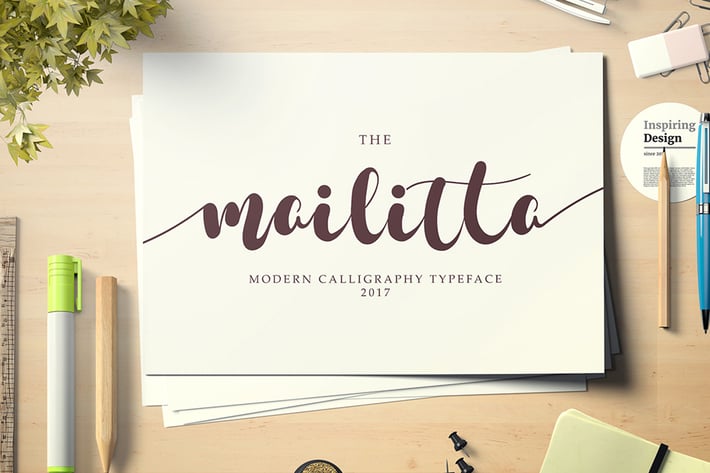
Mailitta font duo
Mailitta is modern script font. With modern script style this font will perfect for many different project ex: quotes, blog header, poster, wedding, branding, logo, fashion, apparel, letter, invitation, stationery, etc.